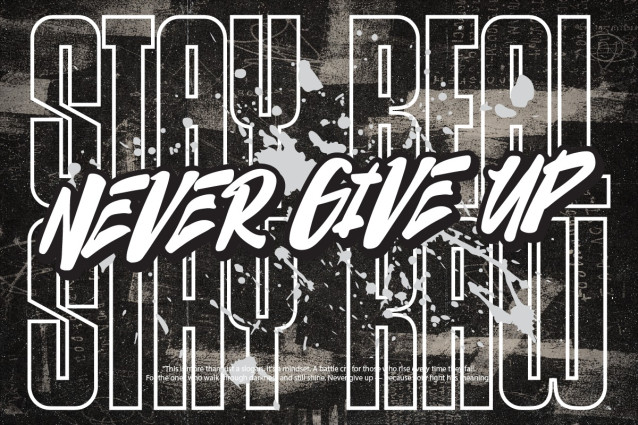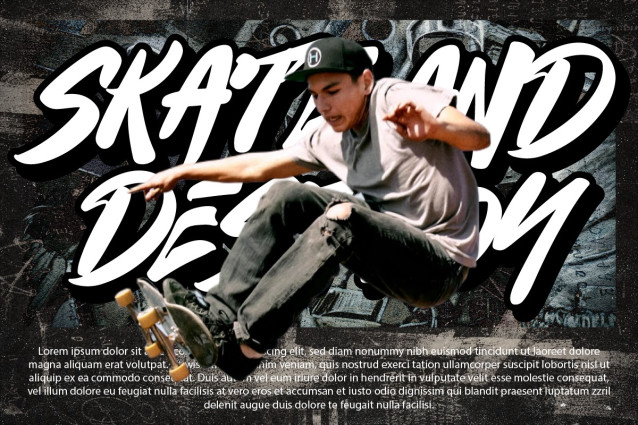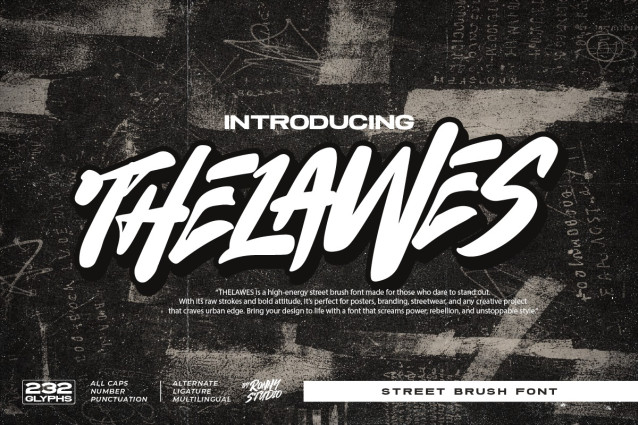
Thelawes Font
Thelawes Font – Street Brush Font Unleash the energy of rebellion and street spirit with Thelawes, a powerful brush typeface inspired by skate culture, graffiti tags, and underground movement. Every stroke is raw, loud, and unapologetically bold—perfect for creators who design without limits.